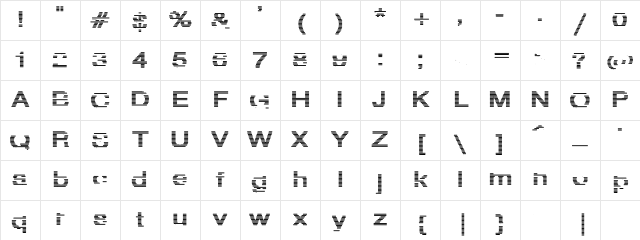
HvStripe-ExtraBold Hollow Regular
Complete HvStripe-ExtraBold Hollow Regular glyph index. Displaying only characters natively supported by HvStripe-ExtraBold Hollow Regular font.
Design Context for HvStripe-ExtraBold Hollow
HvStripe-ExtraBold Hollow is a composed and adaptable typeface that performs quietly and consistently across a wide range of design contexts. Its bold stroke weight gives it real presence on the page.